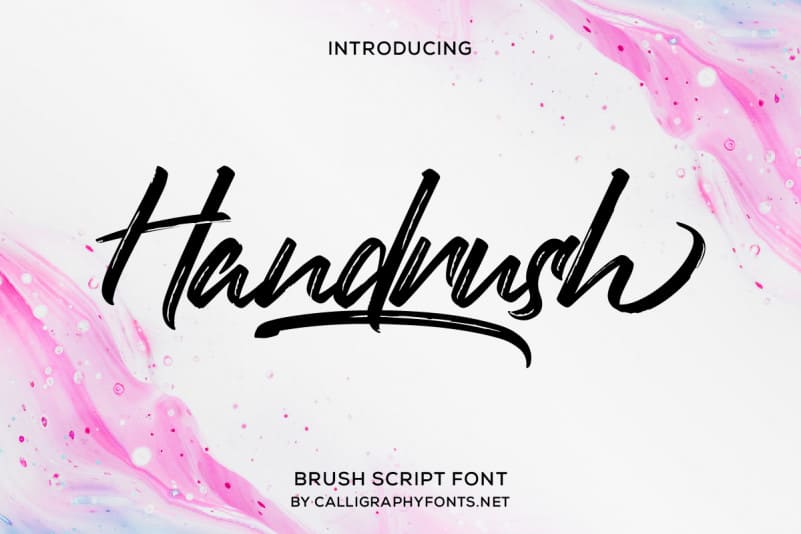
Handrush Font
Handrush Brush Font
Handrush Brush Font is a original textured brush calligraphy font. The style of this font are stylish, classic, elegant, luxury and strong brush font. Handrush Brush Font tested Work on PC & Mac. Handrushfont is inspired by Retro style and combination with Hand Lettering style.
We made with personality touch every single curve. I hope this can make inspire you from your work. will be awesome for wedding, logos, handwritten quotes, product packaging, header, poster, merchandise, social media & greeting cards.